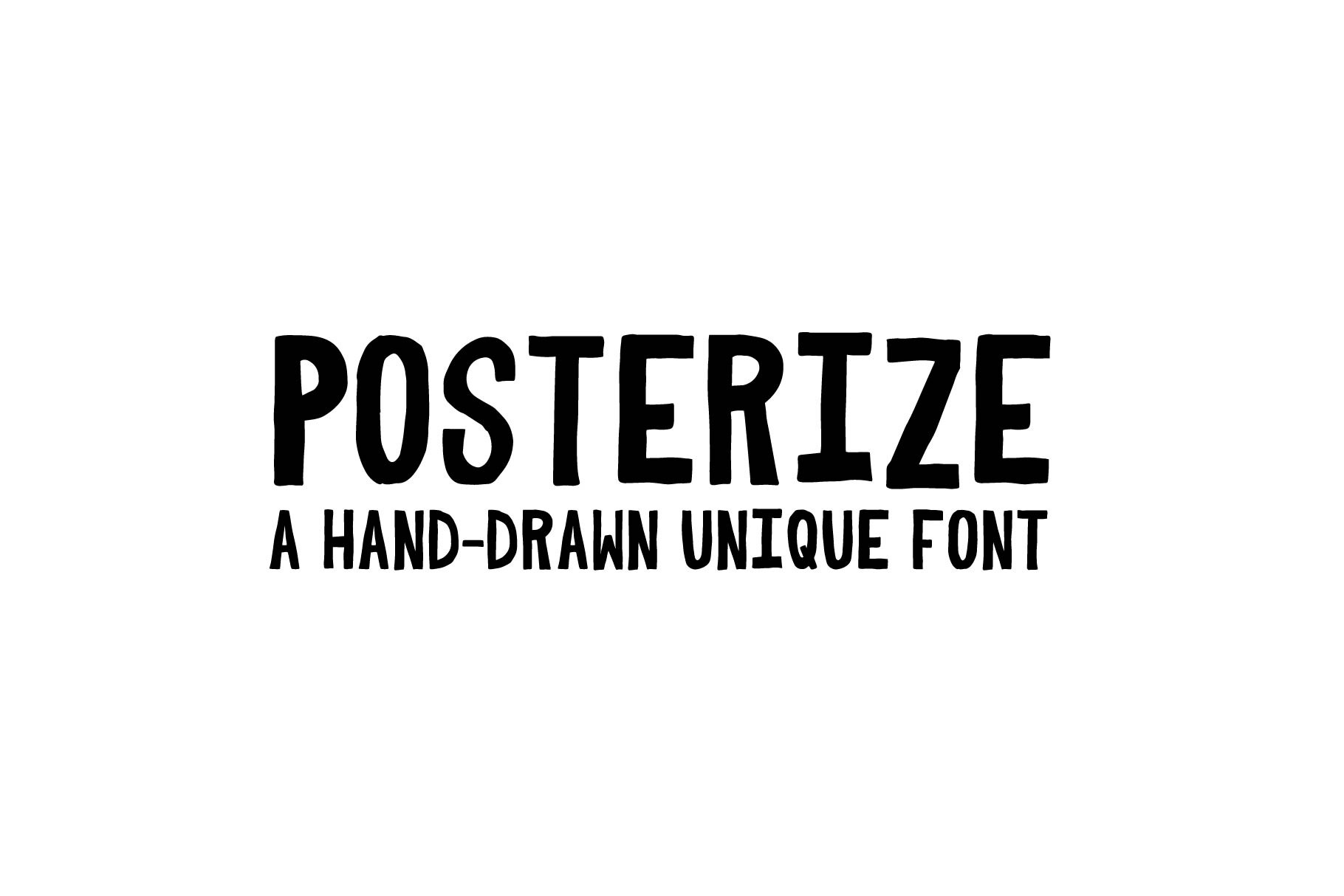
Posterize Font
This hand-drawn sans serif font is perfect for creating logos, apparel, posters, and more! Posterize utilizes hand-drawn letterforms that stand out and attract attention. This casual font is perfect for your everyday needs!